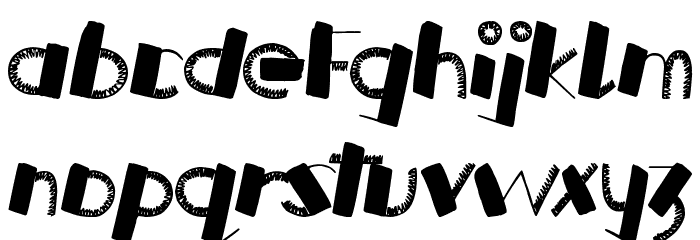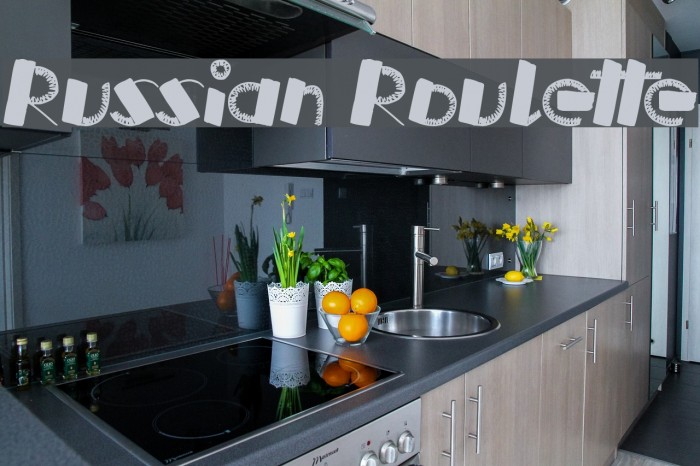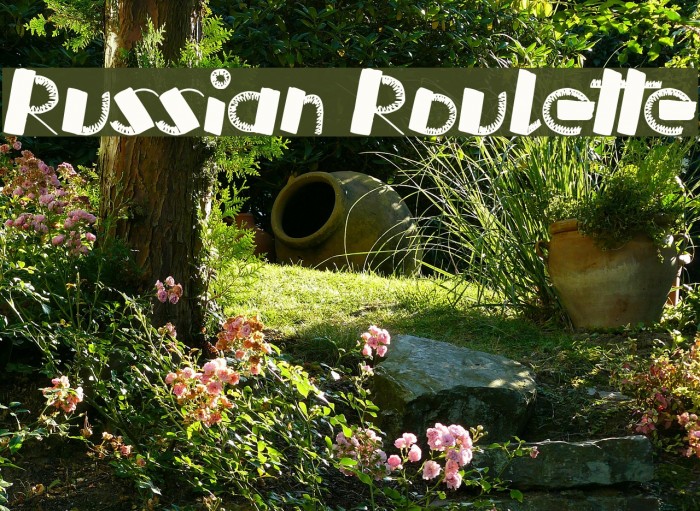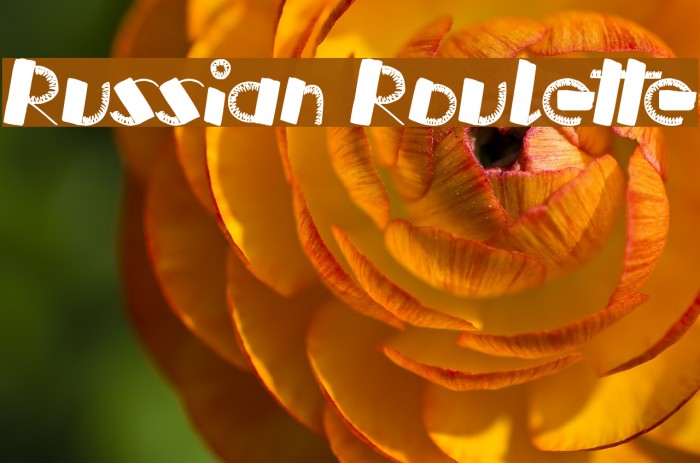
Russian Roulette Font
This font features a bold and edgy design with a unique, hand-drawn appearance. Each character is crafted with a mix of thick and thin strokes, creating a dynamic and somewhat chaotic look. The uppercase and lowercase letters maintain a consistent style, with angular shapes and sharp edges. The font includes a full set of letters, numbers, and a selection of special characters, all designed to stand out with their unconventional and artistic flair. The overall aesthetic is modern and rebellious, making it suitable for projects that require a bold statement.
A bold, edgy font with a hand-drawn, rebellious style.
- Proposed Projects: Ideal for album covers, posters, streetwear branding, and edgy graphic design projects.
- Overall Style: Modern, Rebellious